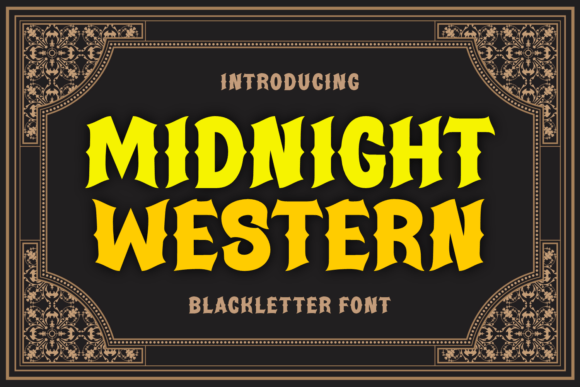
Midnight Western Font: A Bold and Rugged Blackletter Font for Dramatic Designs
Are you looking for a font that can add a touch of the Old West to your designs? Do you want to create posters, signage, and branding that command attention and evoke a sense of drama and elegance? Look no further than the Midnight Western Font, a bold and rugged blackletter font that brings a distinct Western twist to your designs.
What is Midnight Western Font?
Midnight Western Font is a bold and rugged blackletter font that is perfect for designs that need a touch of the Old West. Its jagged serifs, sharp angles, and bold presence make it ideal for posters, signage, and branding that need to command attention. The font’s intricate border elements and classic styling make it perfect for saloon themes, Wild West motifs, and projects that aim to blend historical elegance with a daring edge.
Key Features of Midnight Western Font
- Bold and Rugged Design: Midnight Western Font has a bold and rugged design that is perfect for designs that need to command attention.
- Blackletter Style: The font has a classic blackletter style with jagged serifs and sharp angles that evoke a sense of the Old West.
- Intricate Border Elements: The font comes with intricate border elements that can be used to add a touch of elegance to your designs.
- Classic Styling: The font has a classic styling that is perfect for designs that need a touch of historical elegance.
- Western Twist: The font has a distinct Western twist that makes it perfect for designs that need to evoke a sense of the Old West.
Uses of Midnight Western Font
Midnight Western Font is a versatile font that can be used for a variety of designs, including:
- Posters: The font is perfect for creating posters that need to command attention and evoke a sense of drama and elegance.
- Signage: The font is ideal for signage that needs to be bold and eye-catching.
- Branding: The font can be used for branding that needs to evoke a sense of the Old West and add a touch of elegance.
- Saloon Themes: The font is perfect for saloon themes and Wild West motifs.
- Historical Designs: The font can be used for designs that need to blend historical elegance with a daring edge.
Why Choose Midnight Western Font?
There are many reasons why you should choose Midnight Western Font for your designs. Here are a few:
- Unique Design: The font has a unique design that is sure to stand out from the crowd.
- Versatility: The font is versatile and can be used for a variety of designs.
- Elegance: The font adds a touch of elegance to your designs.
- Drama: The font evokes a sense of drama and attention-grabbing.
Tips for Using Midnight Western Font
Here are a few tips for using Midnight Western Font:
- Use it for Headlines: The font is perfect for headlines that need to command attention.
- Pair it with a Simple Font: Pair the font with a simple font for body text to create a striking contrast.
- Use it for Titles: The font is ideal for titles that need to evoke a sense of drama and elegance.
- Experiment with Colors: Experiment with different colors to find the perfect combination that works for your design.
Midnight Western Font is a bold and rugged blackletter font that brings a distinct Western twist to your designs. Its jagged serifs, sharp angles, and bold presence evoke a sense of the Old West, perfect for posters, signage, and branding that need to command attention. The intricate border elements and classic styling make this font ideal for saloon themes, Wild West motifs, and projects that aim to blend historical elegance with a daring edge. With its unique design, versatility, elegance, and drama, Midnight Western Font is the perfect choice for designers who want to add a touch of the Old West to their designs.